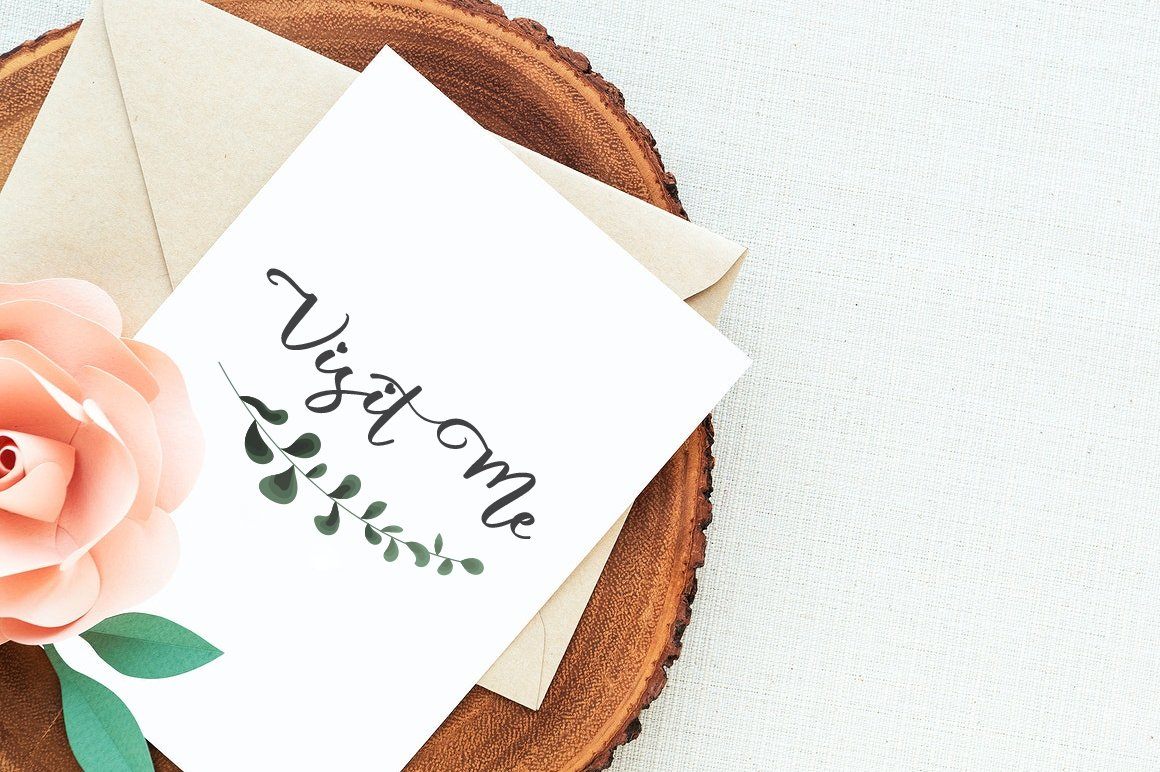
About Abiland Script – Heart Font
Abiland Font is beautiful script with good flow and unique alternate font. inspired by a sweet love contemporary handwriting fonts with ligatures and alternative styles ready to add unique look and bloom on your design It easily cooperating together For Magazine, Movies, or Book Titles. For Photography, Wedding Invitation, Restaurant Menu or T-shirt Design. For Flyers, Banner Ads, web and printing. From Food and Fashion to a Cosmetics product Font Features : OTF + TTF files Web font file (.WOFF) Upper + Lowercase Letters Numbers + Punctuation Ligature Feature OpenType features Multilingual support Free Bonus Swash Software for use this font: Adobe Illustrator, Adobe Photoshop, Adobe Indesign, Word, Corel draw, inkscape).